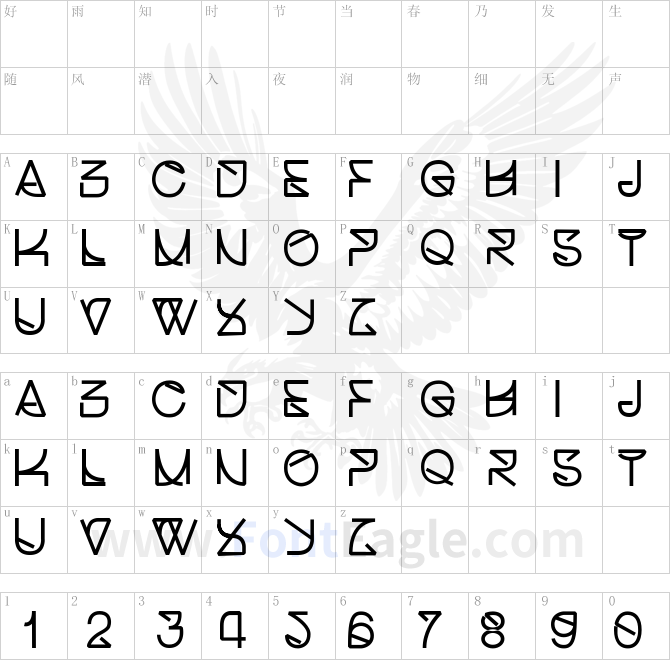
- Font name:Helvetica Struggle
- Font Subfamily ID:1.000;PYRS;HelveticaStruggleBold
- Font Full Name:Helvetica Struggle Bold
- Postscript:HelveticaStruggleBold